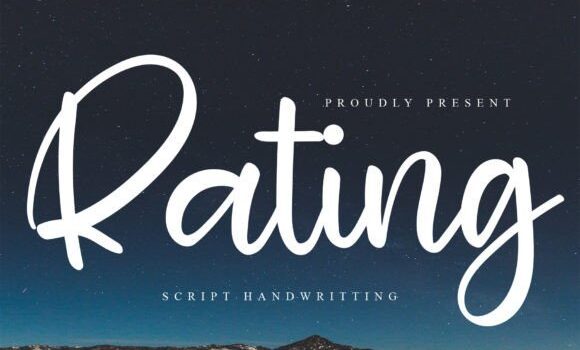
Rating Font – Free Download Introduction to Rating Font Rating is a playful and stylish handwritten font with a youthful spirit. 📸 Preview Gallery 6 images 📌 Product Name Rating Font 👤 Author YanStudio 📂 Category Explore ⬇️ Download Rating